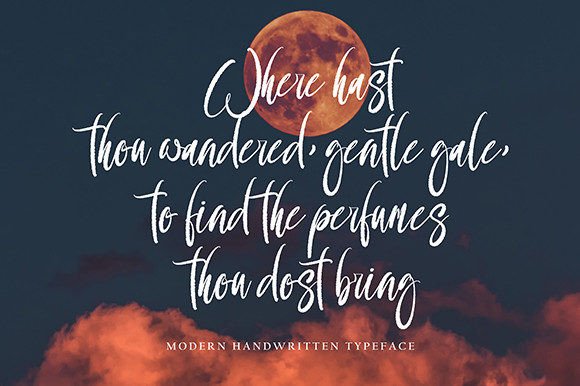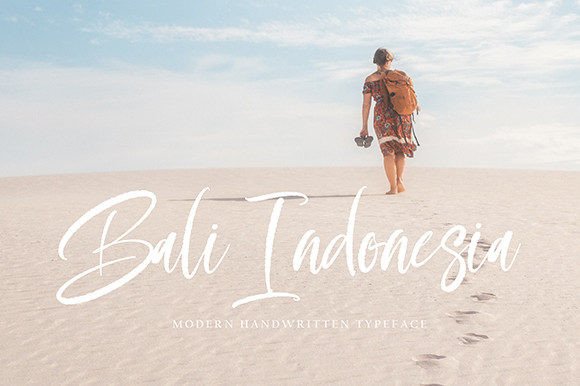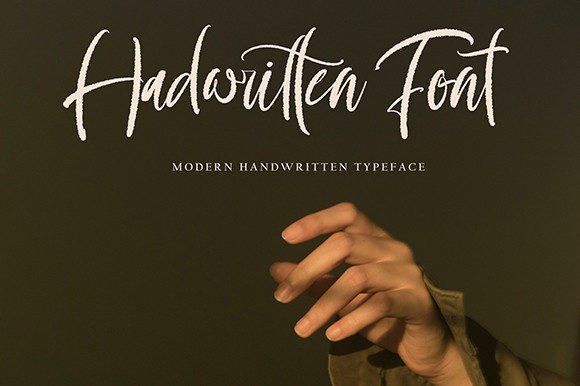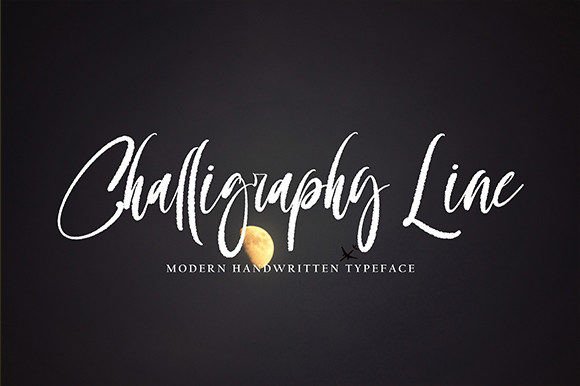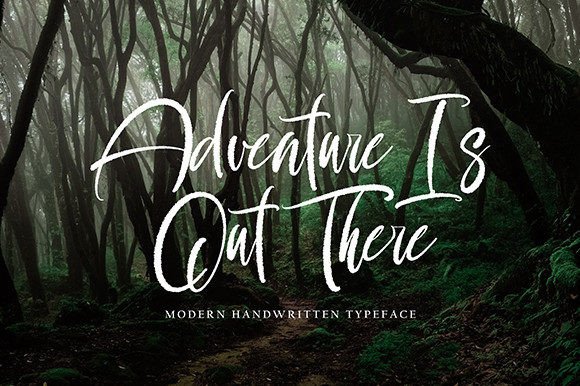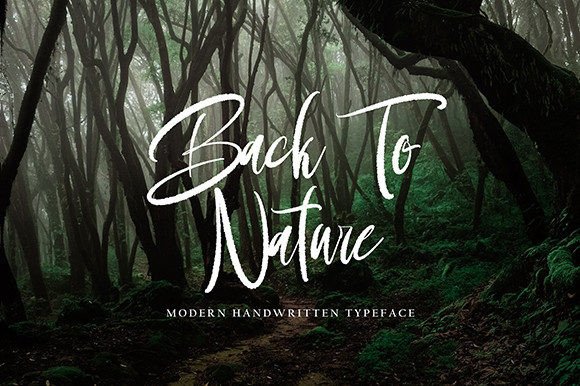
Introduction to Shignatture Font
Have you ever been working on a creative project, staring at a blank page, and suddenly a beautiful handwritten font pops into your mind? That’s exactly what happened to me when I discovered the Shignatture Font. Its unique and elegant design makes it the perfect addition to any project, from logos to quotes. With its high-quality design and transparent background, it’s no wonder why designers love using this font to make their designs come alive.
As a valuable resource for designers, Shignatture Font is a game-changer for those looking to add a personal touch to their work. Its beautiful, hand-drawn style is sure to elevate any design project, making it a must-have for any creative professional. Whether you’re working on a branding project or just need a font for a free download, Shignatture Font is the perfect design resource to have in your toolkit.
Key Features of Shignatture Font
- Unique, hand-drawn design ideal for creative projects requiring a high-quality, custom touch.
- Designed as a versatile design resource suitable for a wide range of applications, from branding to editorial content.
- Includes a range of characters, including uppercase and lowercase letters, numerals, and punctuation marks.
- Perfect for designers and artists looking for a distinctive, high-quality font to elevate their creative projects.
Honest Review: Shignatture Font
I recently had the chance to try out the Shignatture Font, and I must say it’s a solid addition to any designer’s toolkit. This font is perfect for creative projects that need a touch of elegance and sophistication.
- High quality design that looks great on both light and dark backgrounds ✨
- Works well with transparent backgrounds, making it perfect for animations and overlays ✨
- Easy to customize and style to fit your design needs ✨
However, I did encounter a few limitations while using the Shignatture Font.
- Limited character set, which can be a issue for designers who need a wide range of characters ⚠️
- No bold or italic styles available, which can limit its use in certain design scenarios ⚠️
Overall, I’m impressed with the Shignatture Font. It’s a great design resource that’s perfect for designers who need a high-quality font for their creative projects. While it has its limitations, it’s still a great option for designers who want a elegant and sophisticated font for their free download.
The Shignatture Font is perfect for creative projects such as logos, business cards, and social media graphics. It’s also great for design projects that require a unique and eye-catching touch.